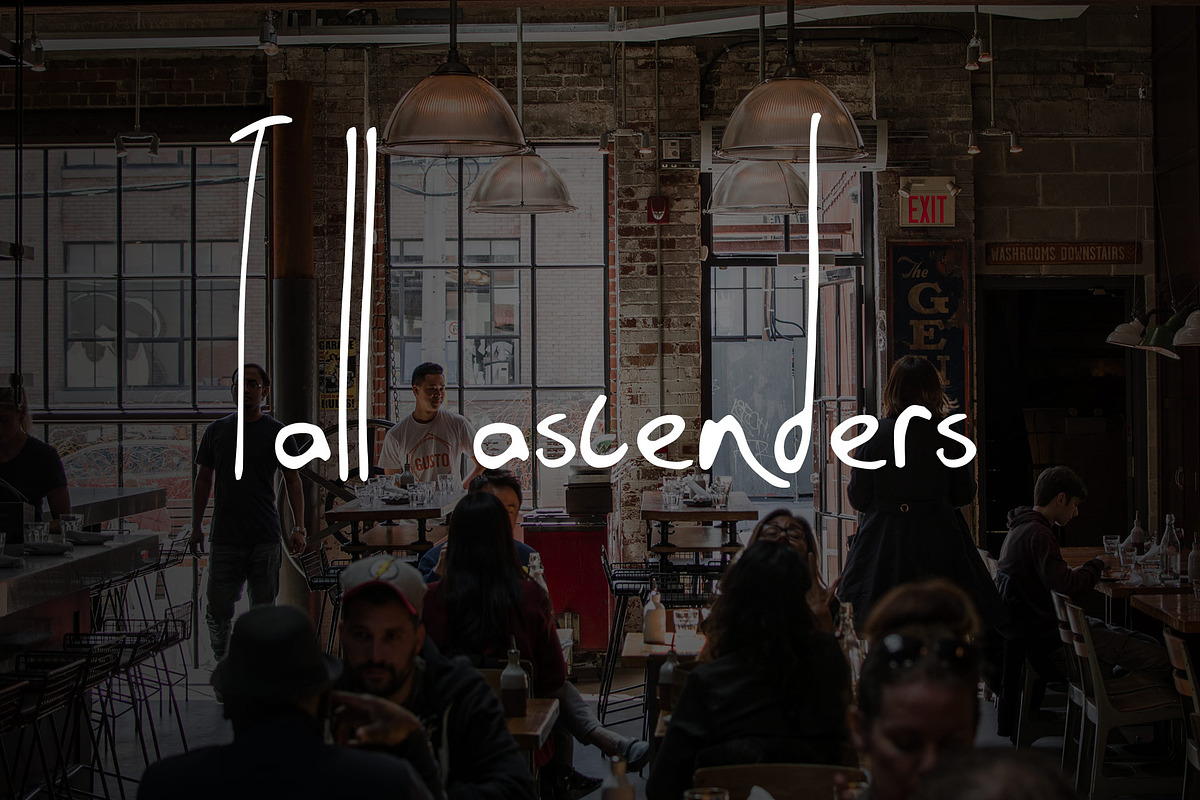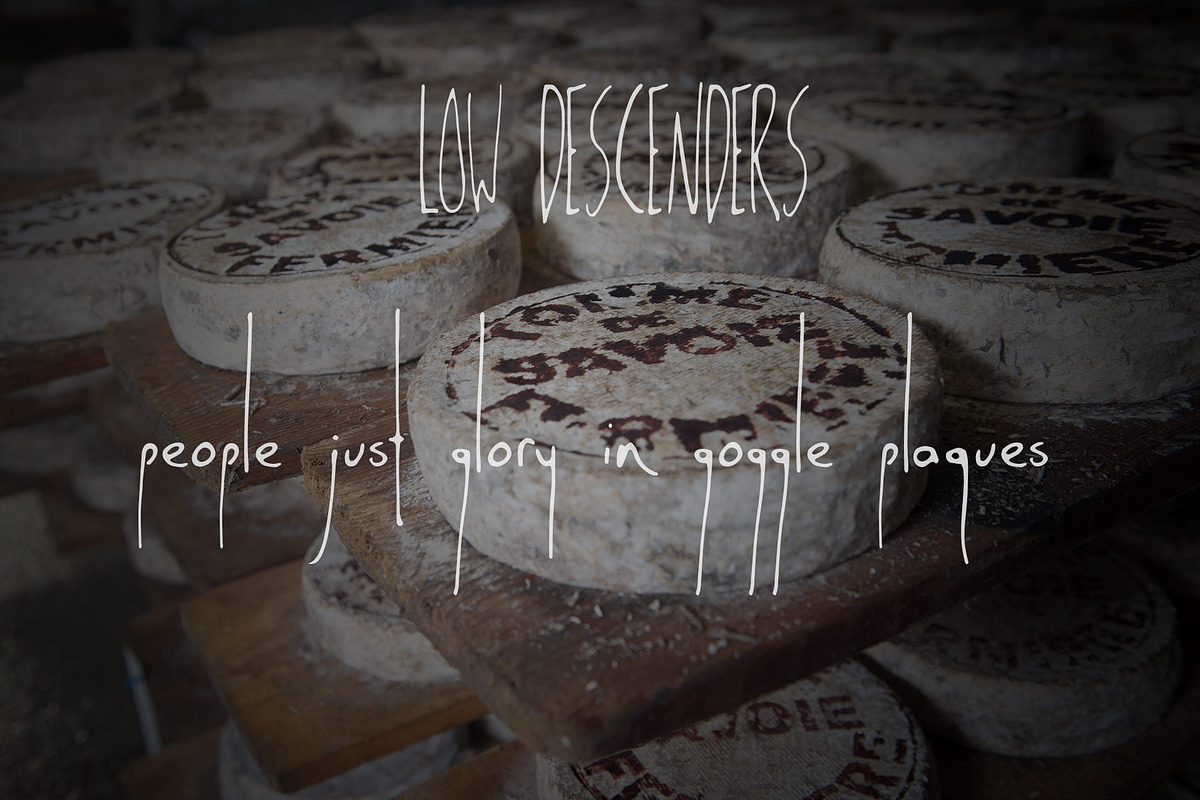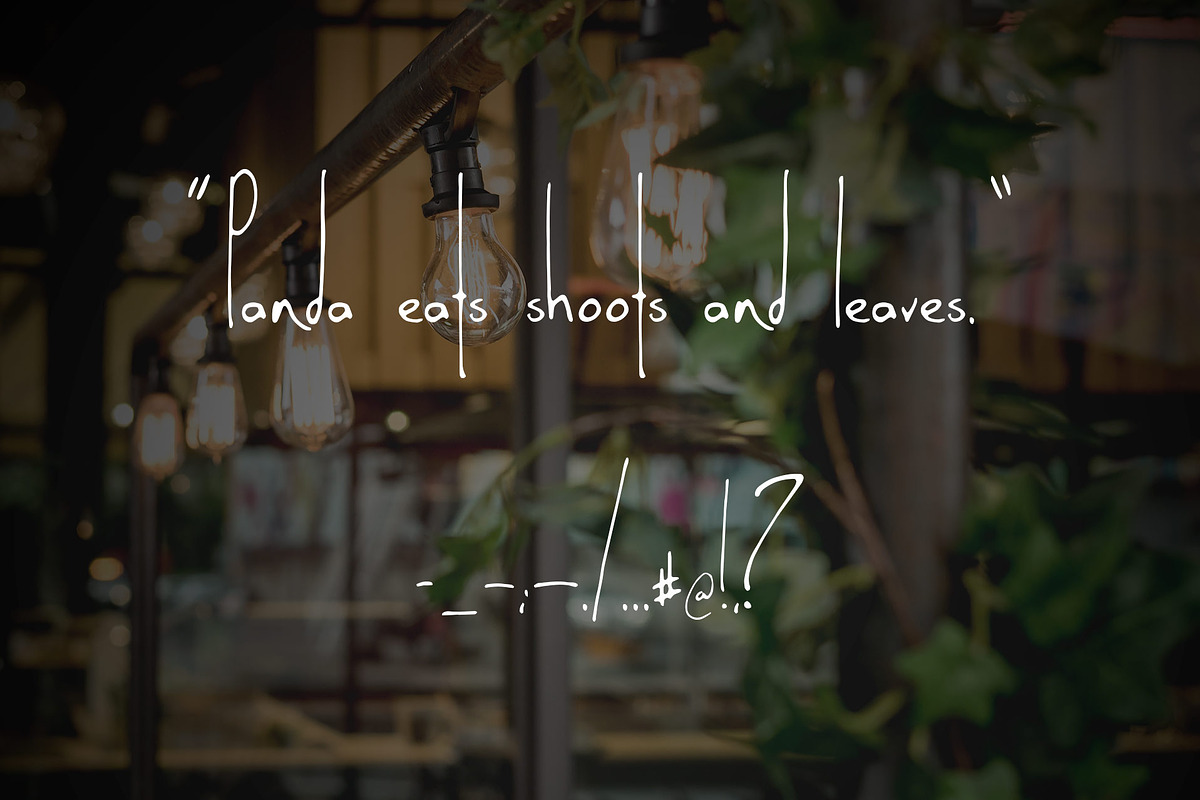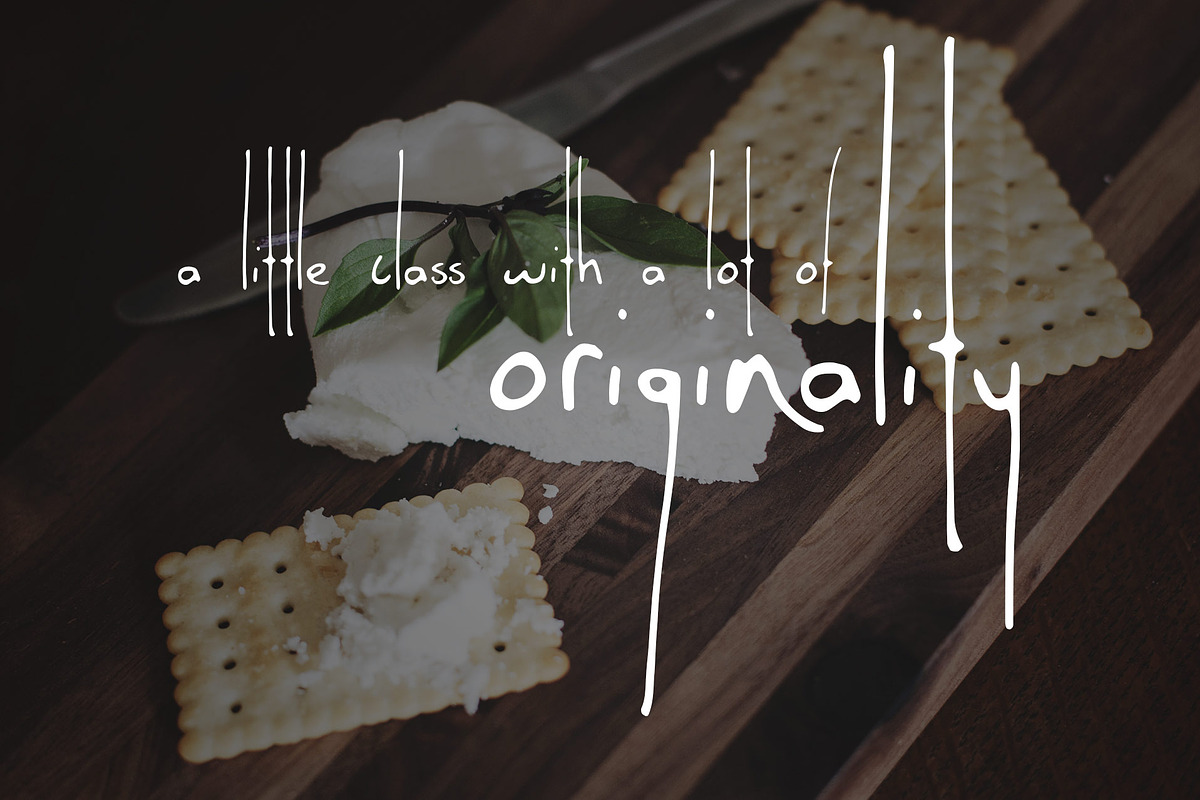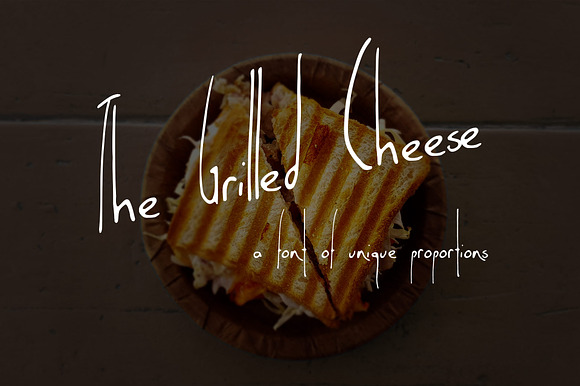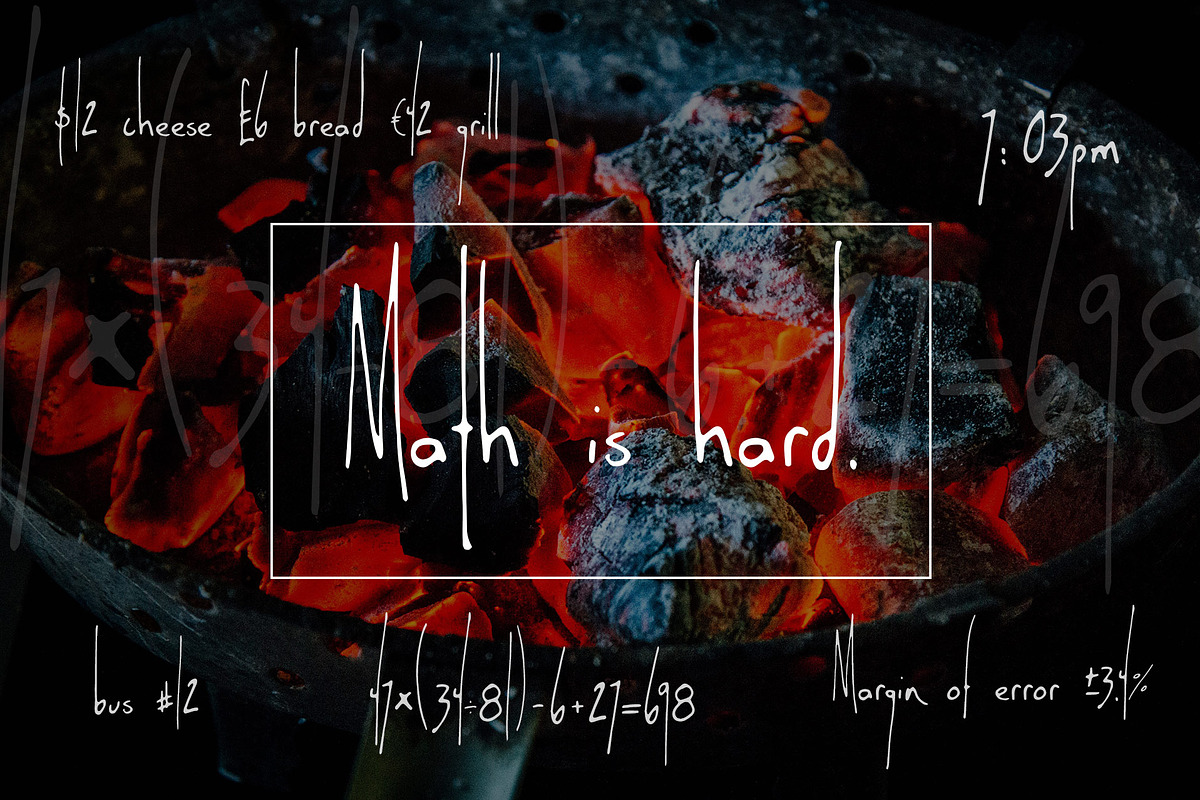
Handwritten Font Grilled Cheese
The Grilled Cheese A handwritten font with a little class and a lot of originality.
Grilled Cheese will add a little organic texture to any text.
It is at ease on a mountain chopping down trees or eating a grilled cheese in a cafe.
The Grilled Cheese also smells delicious.
This font is made up of:
some currencies (Dollar, Cents, Euro, Sterling, Yen)
- This font is made up of: lowercase a–z uppercase A–Z numbers 0-9 common punctuation basic math symbols some currencies (Dollar, Cents, Euro,